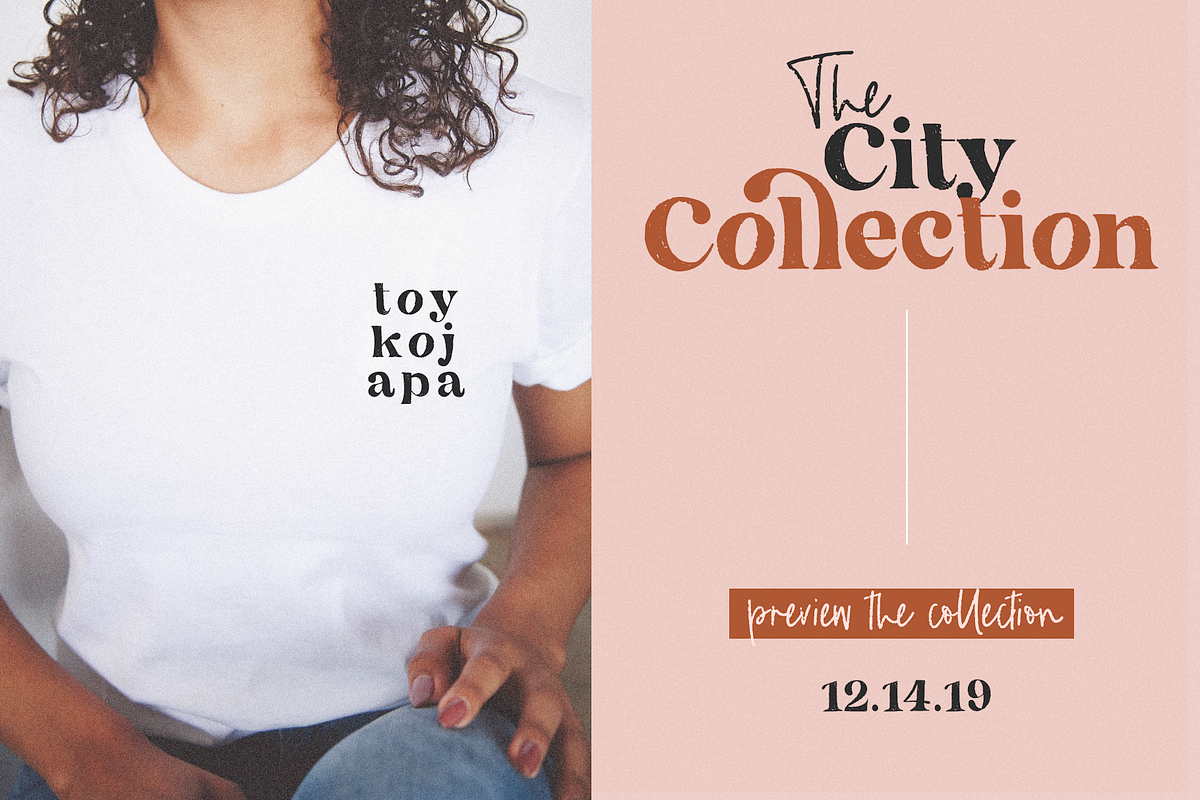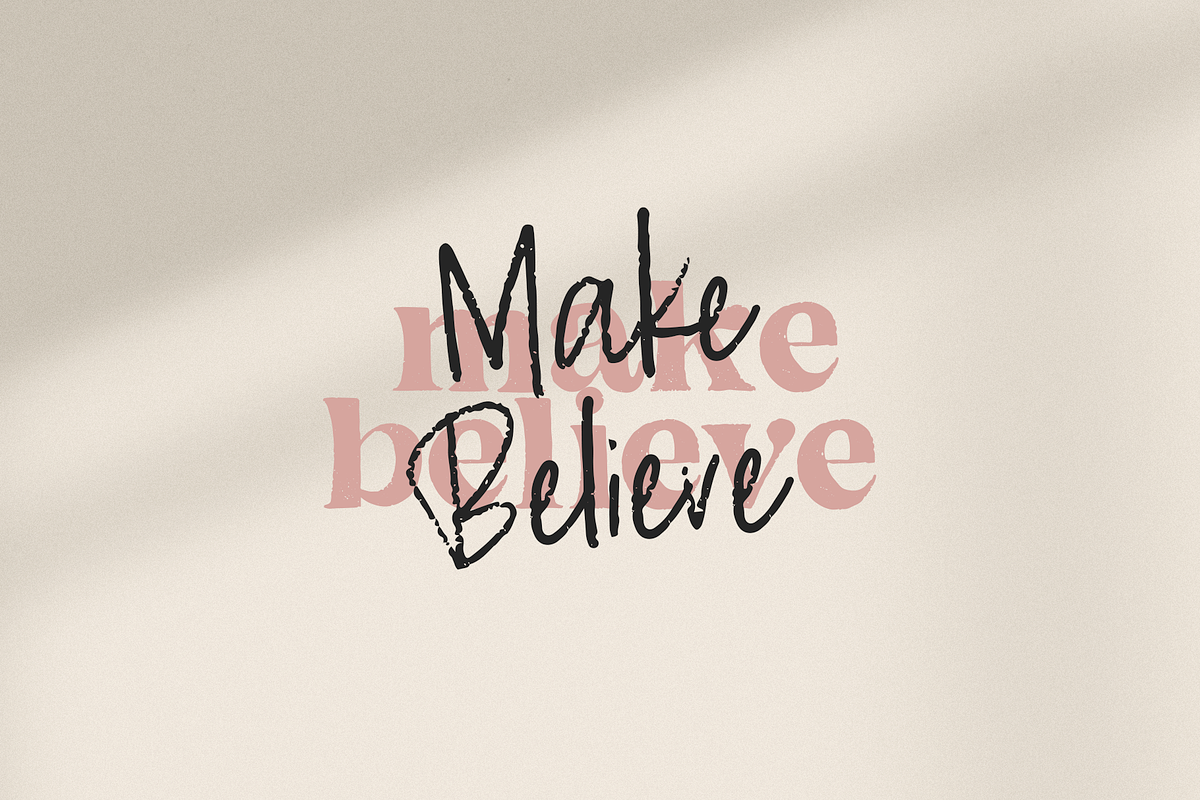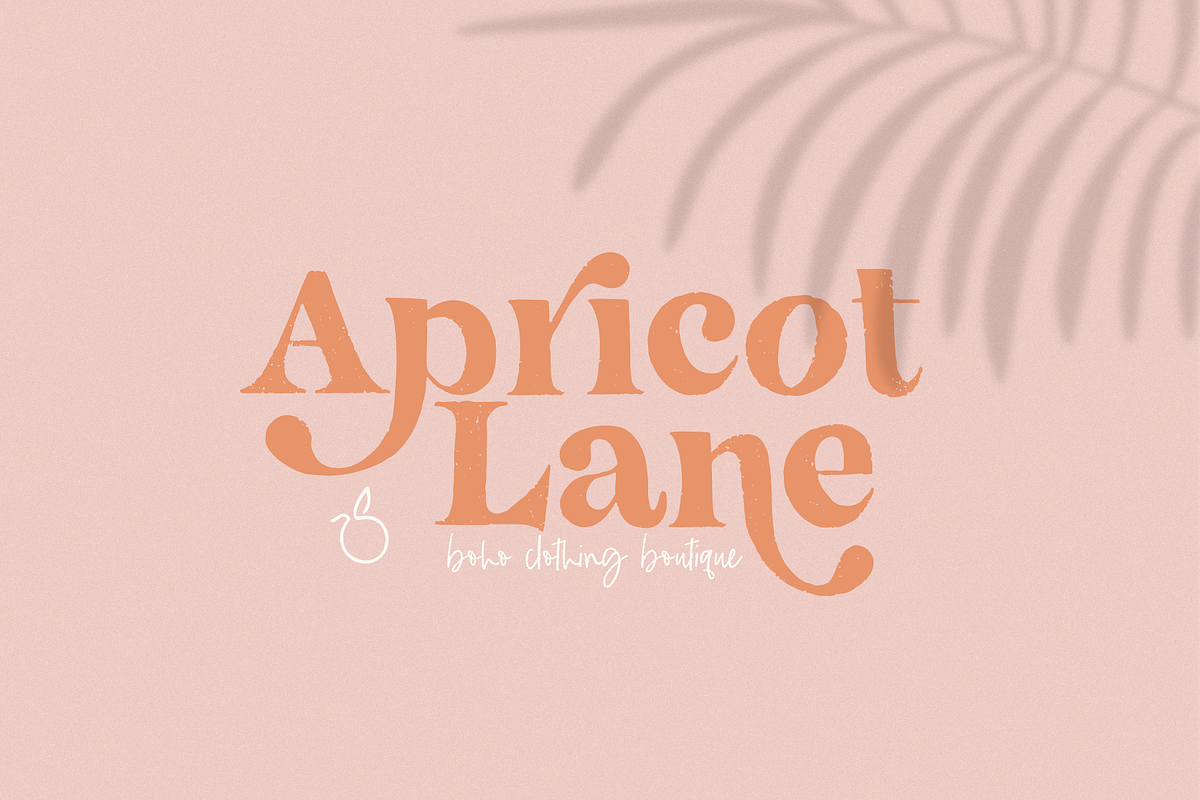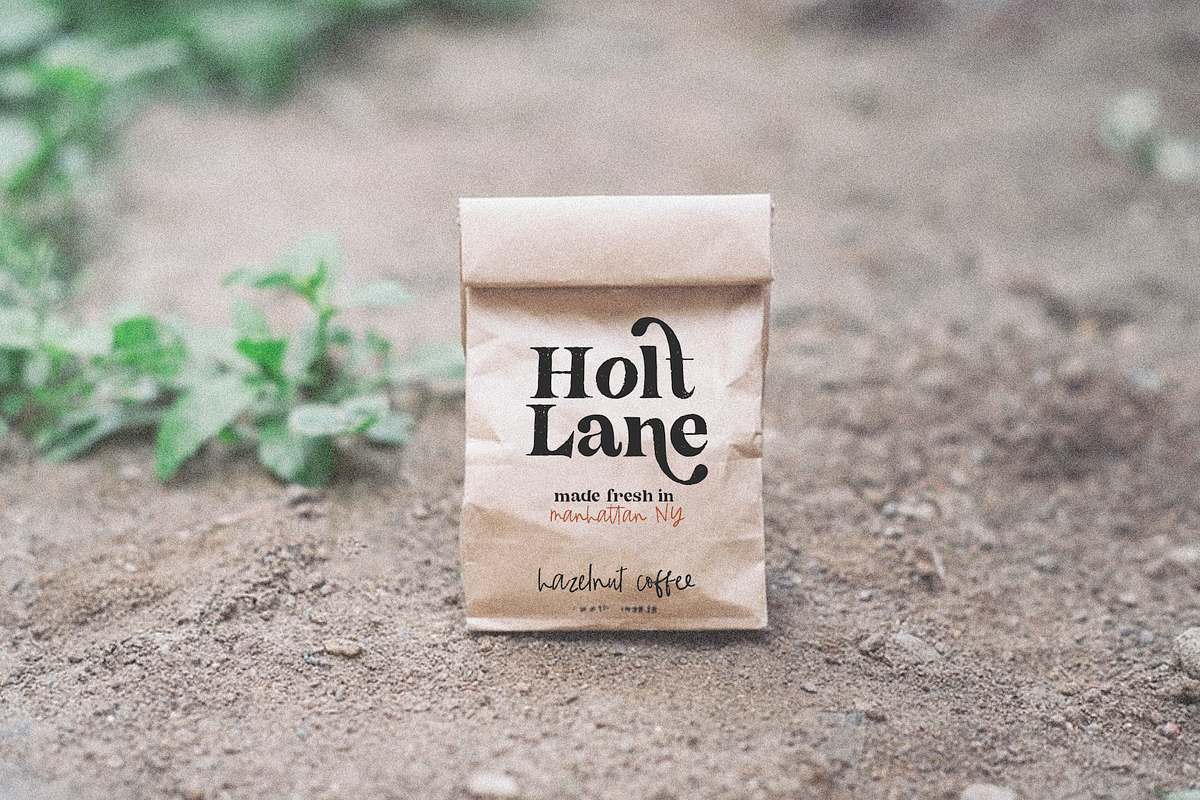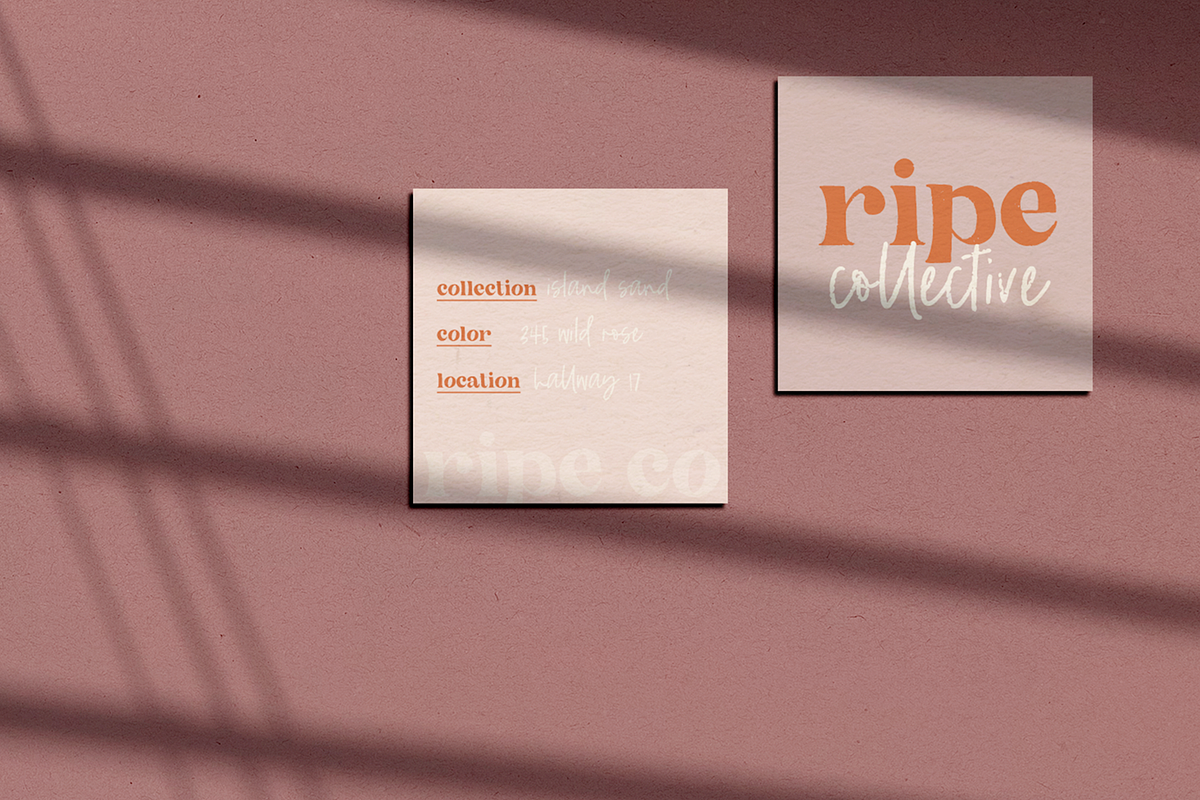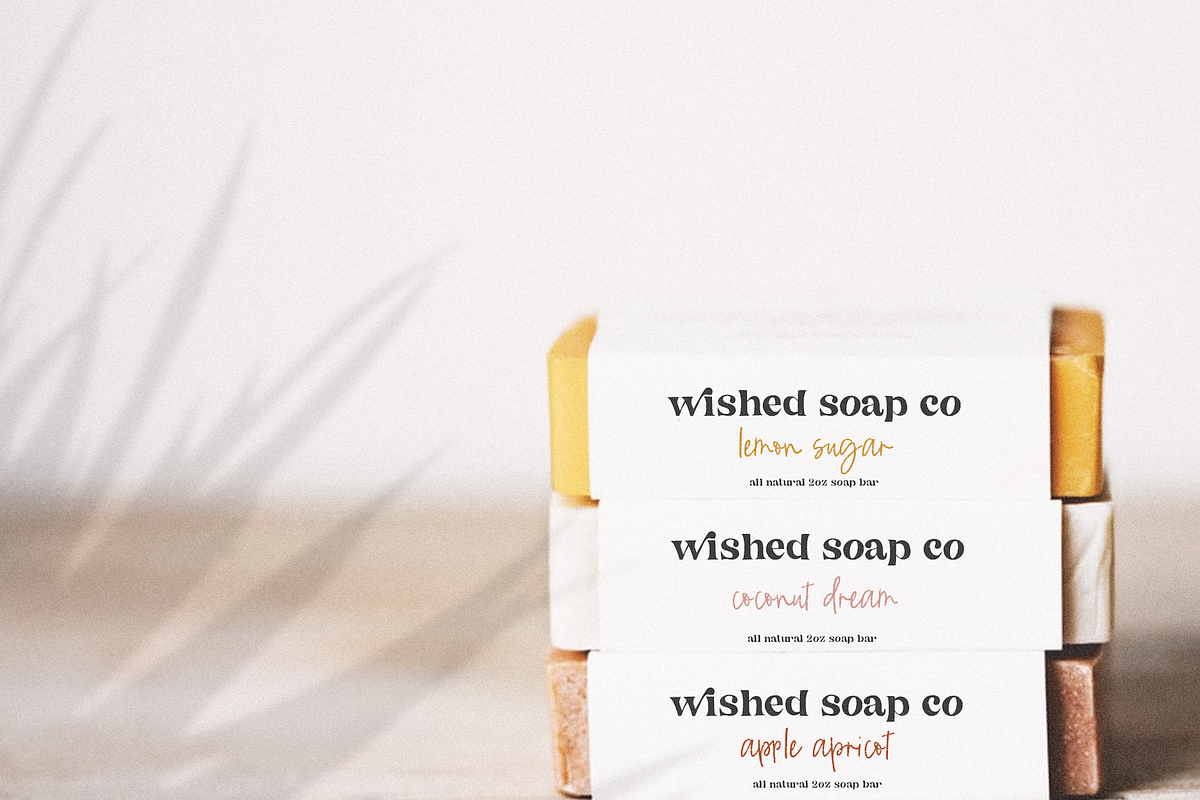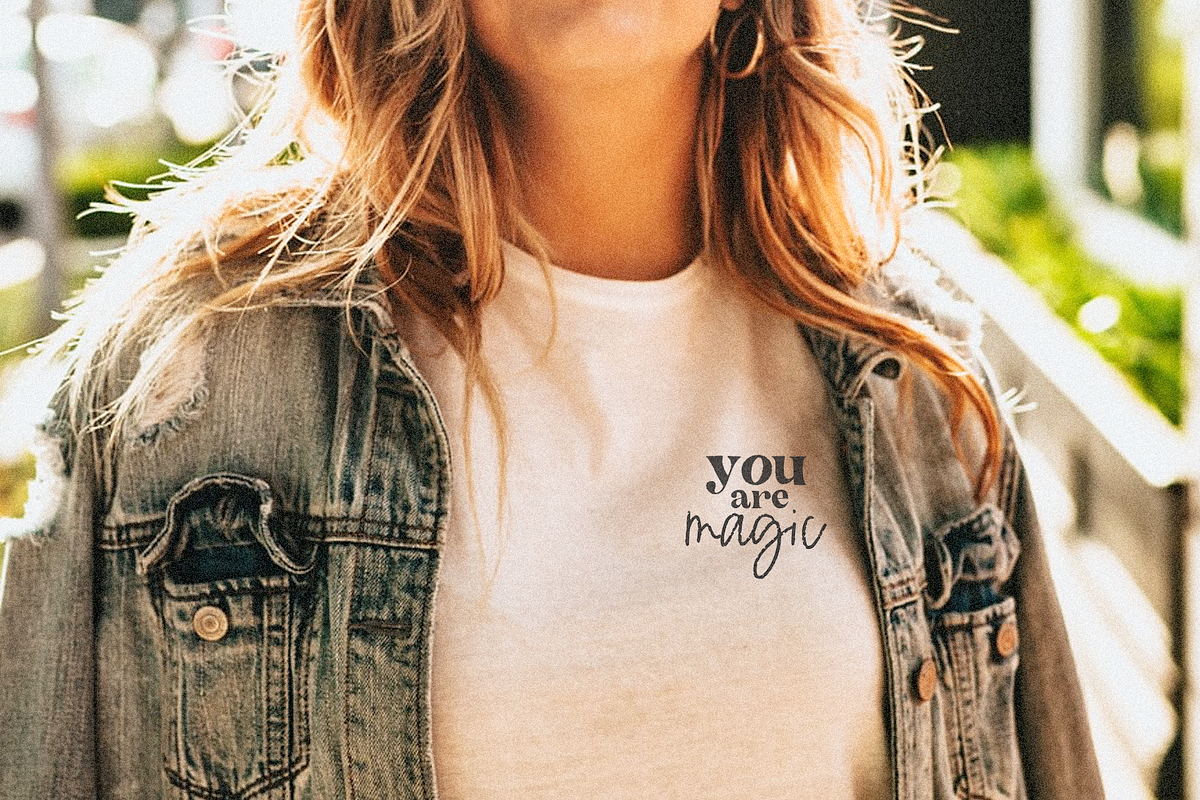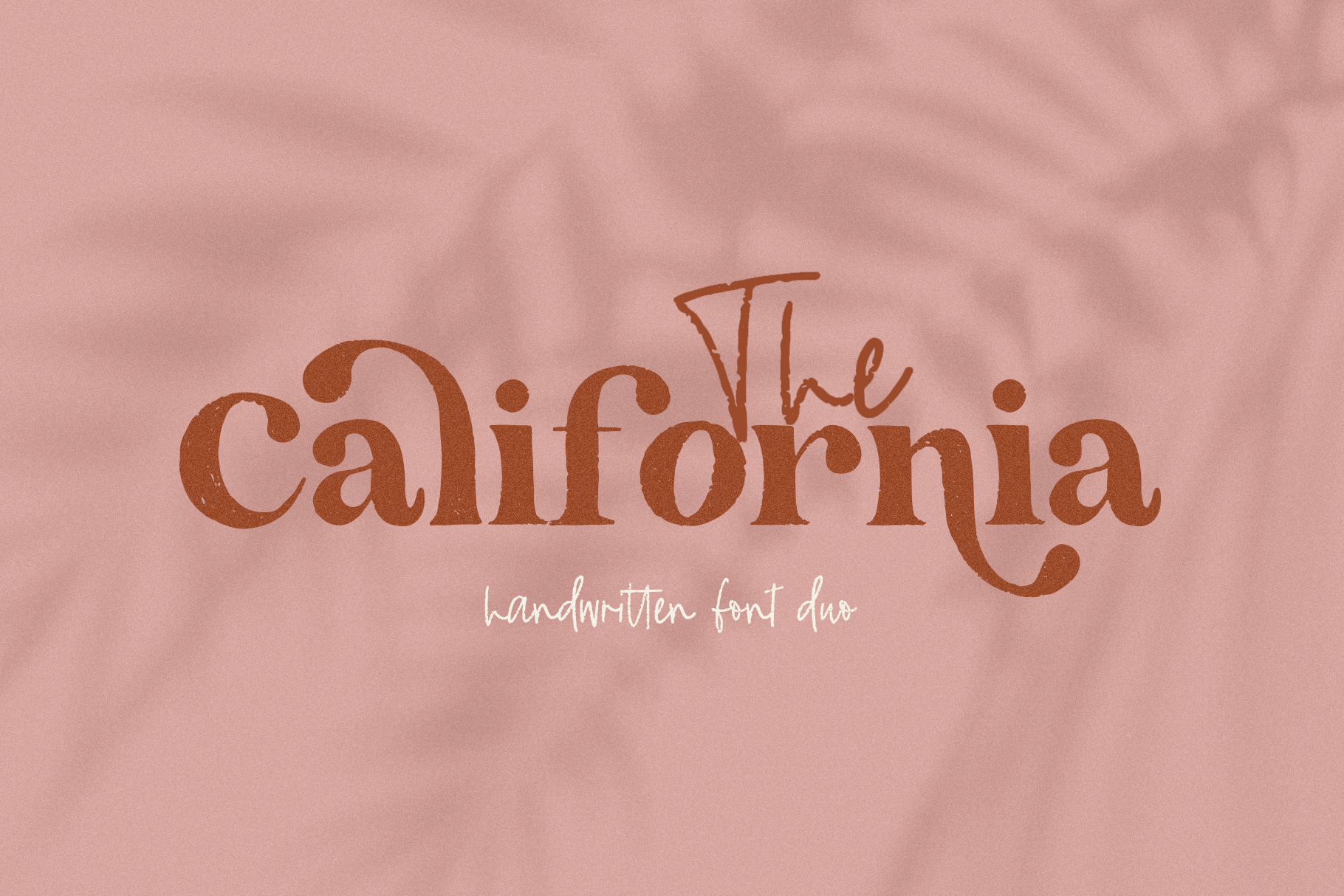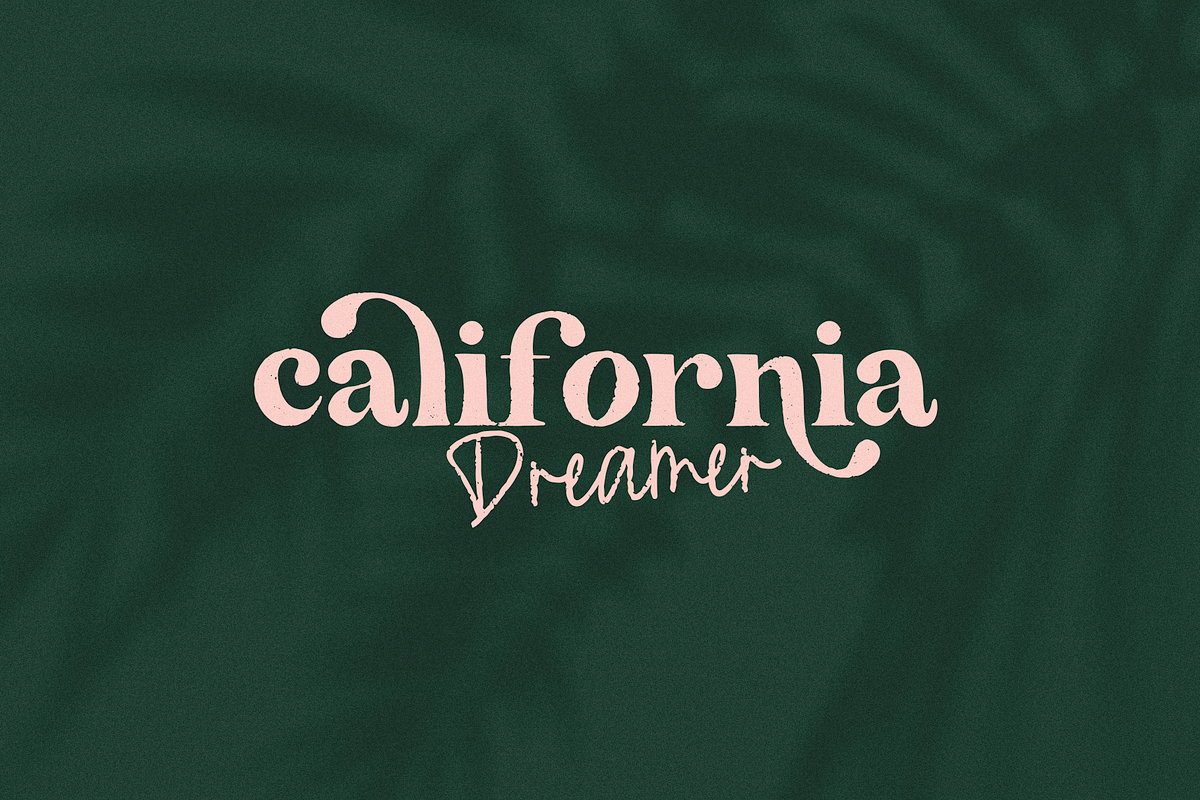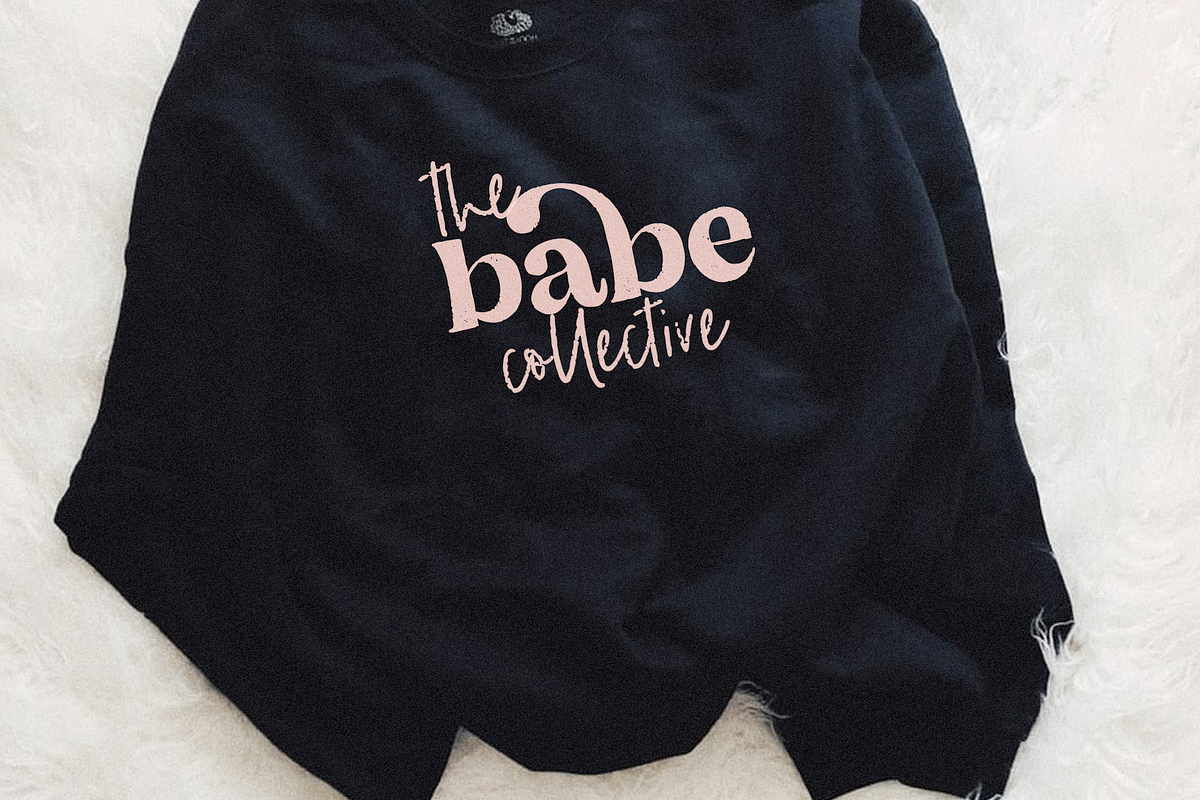
The California | Serif Font Duo
The California is a hand-drawn font duo with a modern look. I wanted to keep as much texture as I could for this duo - which gives it an authentic look!
This font duo is perfect for any modern project including branding design, logos, invitations, wedding decor, website design, instagram, business cards, and more!
- The California Serif - A chic & textured serif font with a few alternative tails
- The California Script - A heavily textured script font
- The California Solid - A smooth version of the textured serif